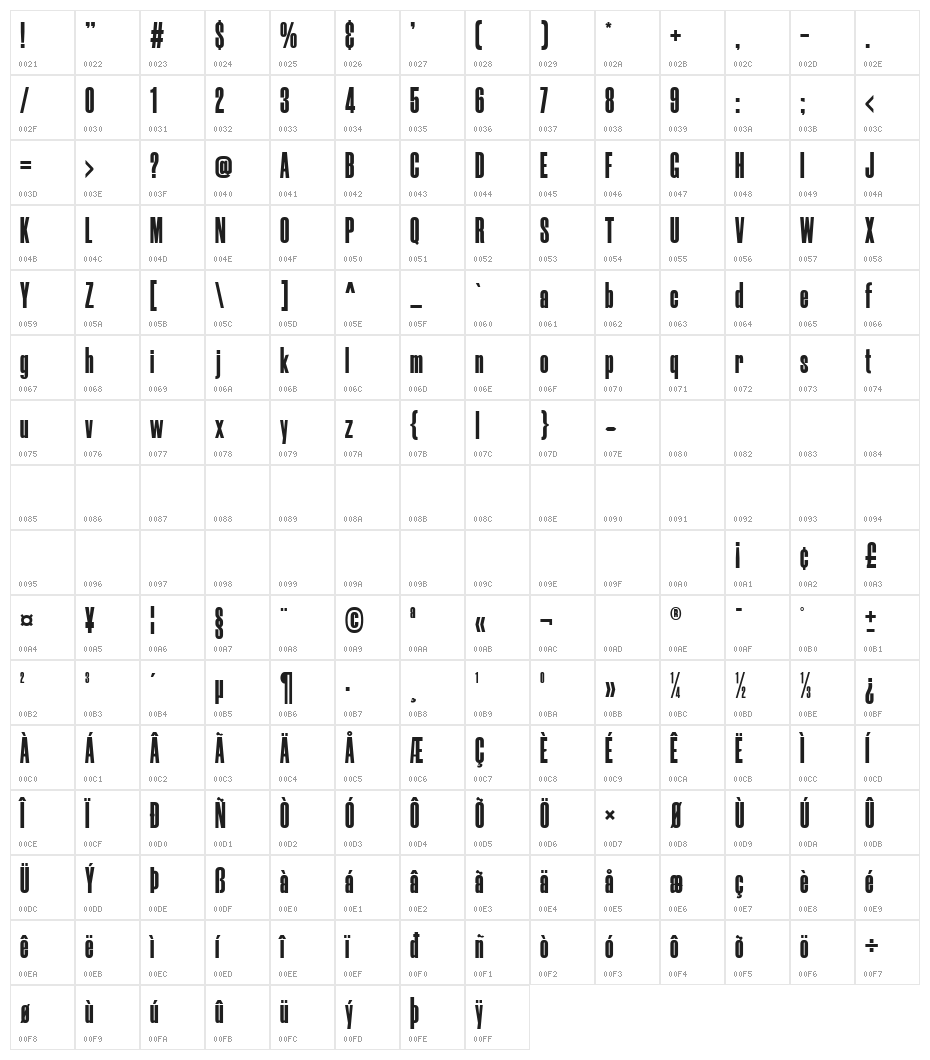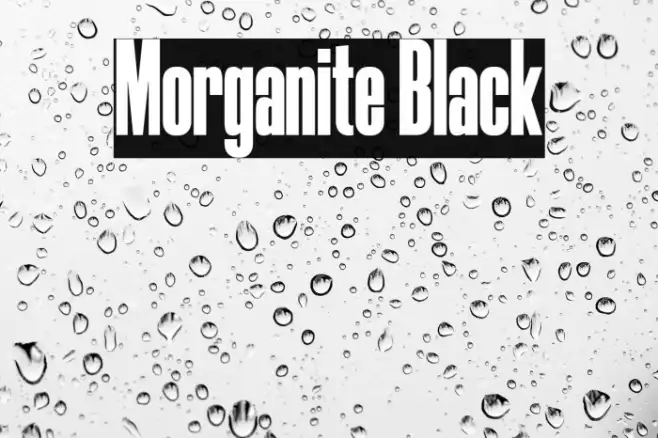
Morganite Black Font
Morganite Black Description
This font features a bold and striking design with thick, uniform strokes that create a powerful visual impact. The uppercase and lowercase letters are well-proportioned, maintaining a consistent width throughout. The numbers and special characters follow the same bold style, ensuring a cohesive look across all text elements. Its geometric structure and clean lines make it ideal for modern and impactful designs. The font's strong presence is perfect for grabbing attention and making a statement.
| Proposed Projects | Ideal for headlines, posters, branding, and any project requiring a bold statement. |